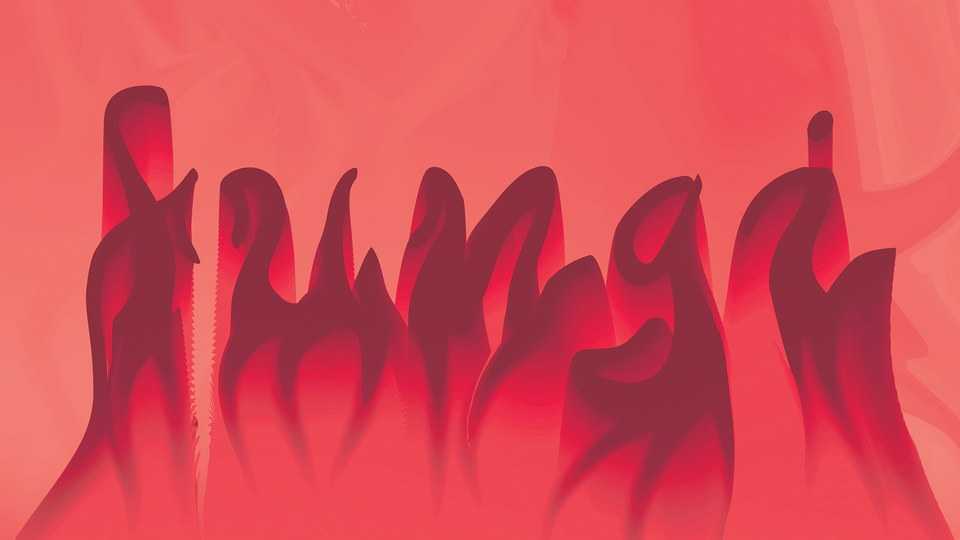
Download Fungi font, a unique typeface with a smooth and flowing vibe. Fungi is perfect for outstanding designs, posters, prints, album artworks and typographic compositions.
Designer: Julia Zakrocka